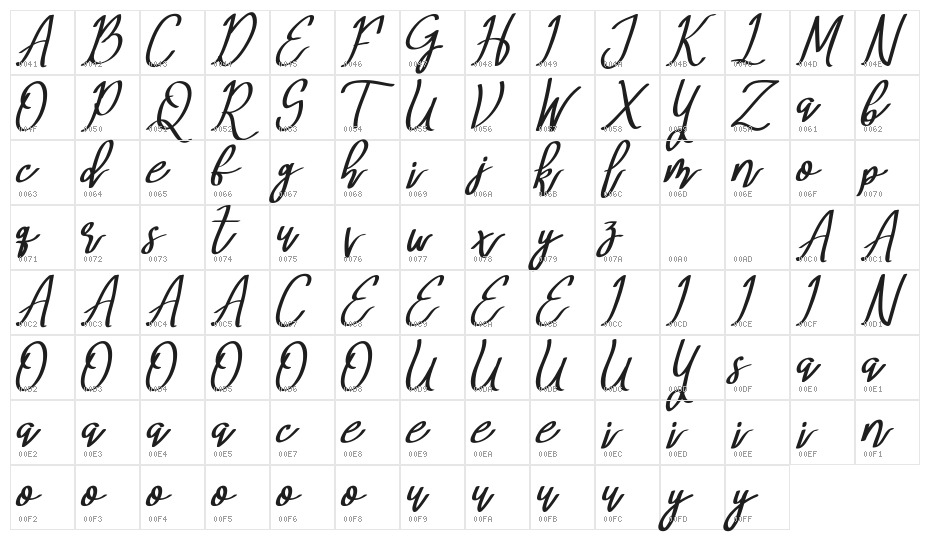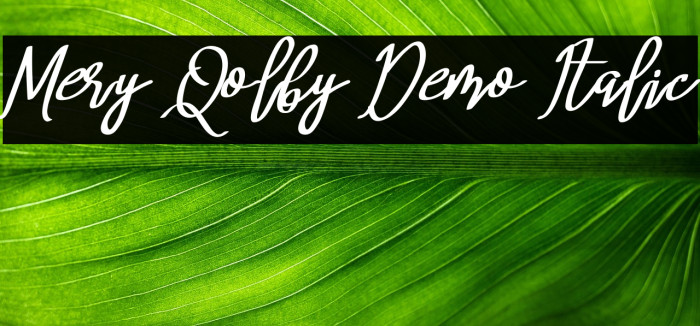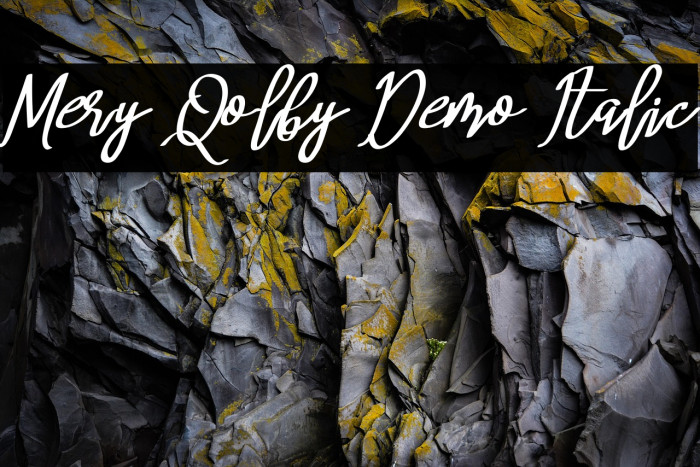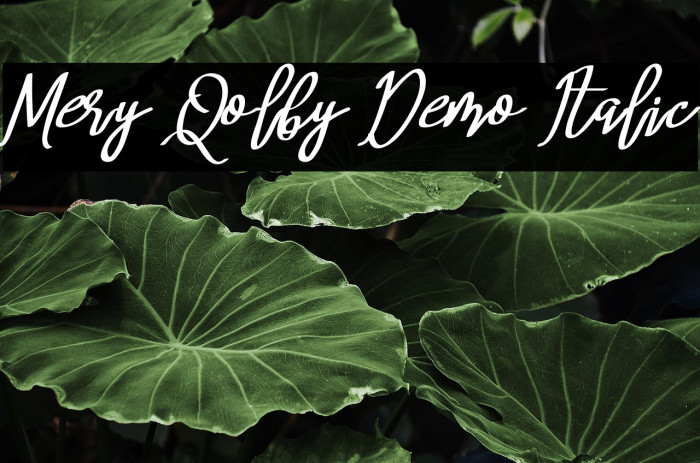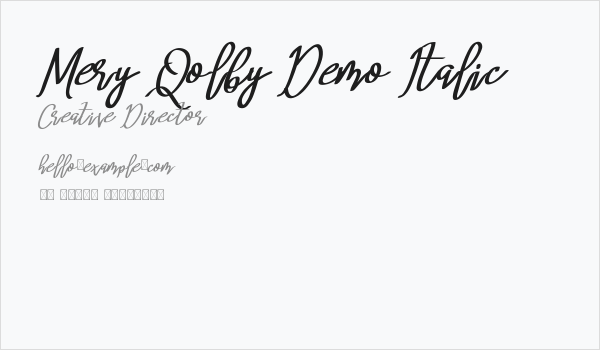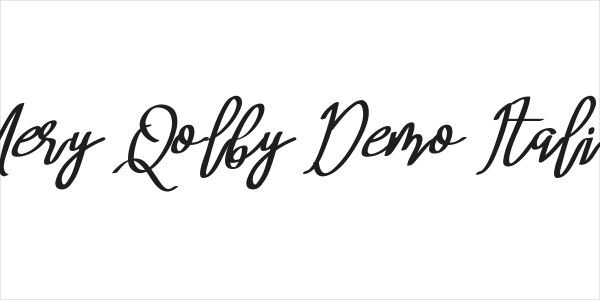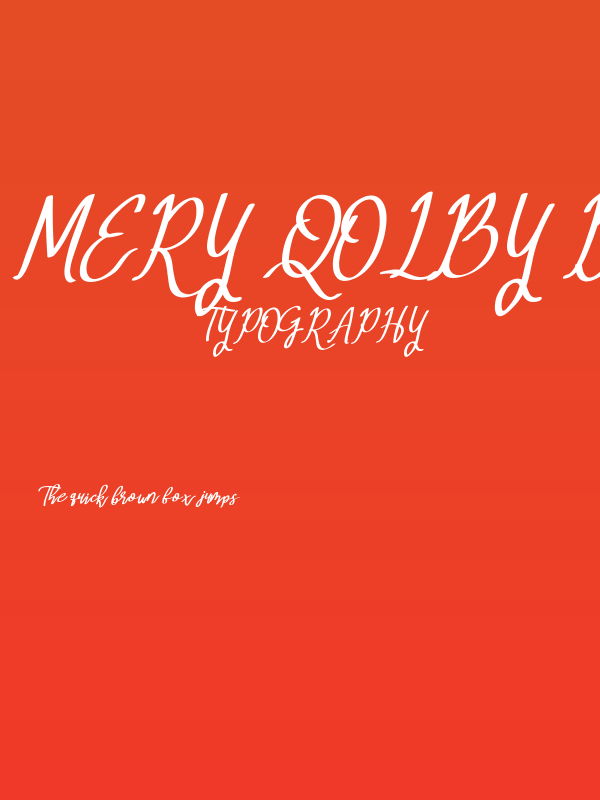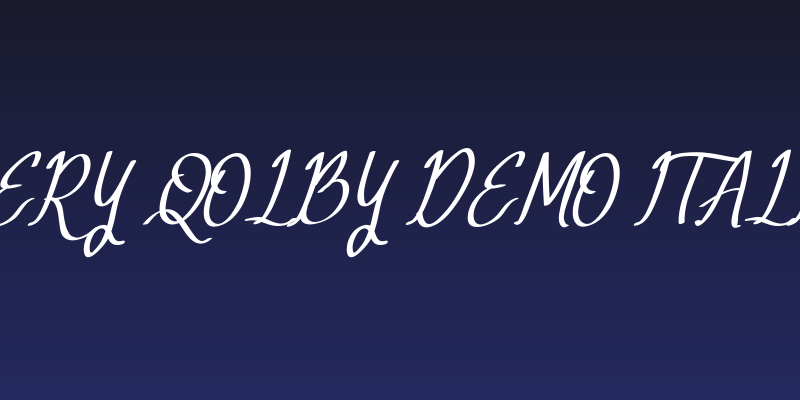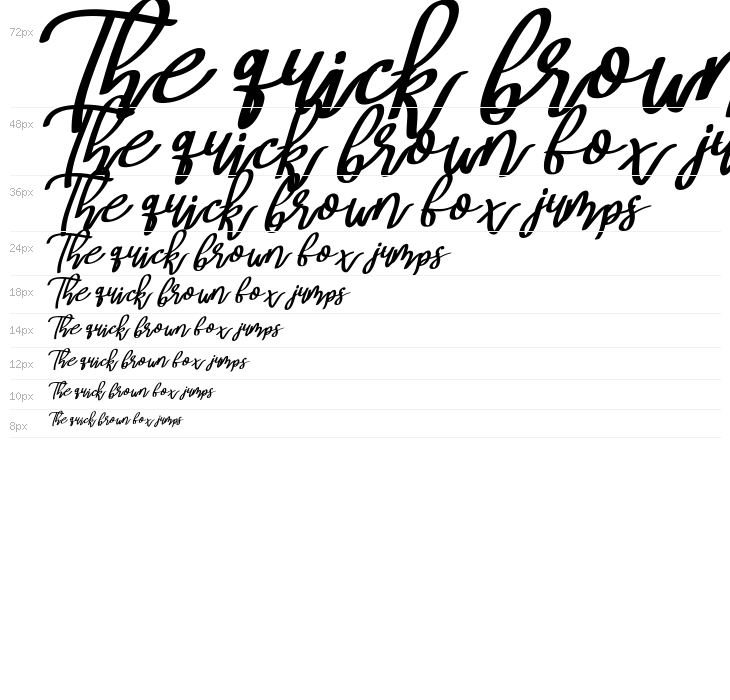
Mery Qolby Demo Italic Font
Mery Qolby Demo Italic Description
This elegant script font features a flowing, cursive style with a modern touch. The letters are connected, creating a seamless and fluid appearance. The uppercase letters are tall and graceful, while the lowercase letters are compact and rounded, giving a balanced and harmonious look. The strokes vary in thickness, adding a dynamic and lively feel to the text. This font exudes sophistication and charm, making it ideal for projects that require a personal and artistic touch.